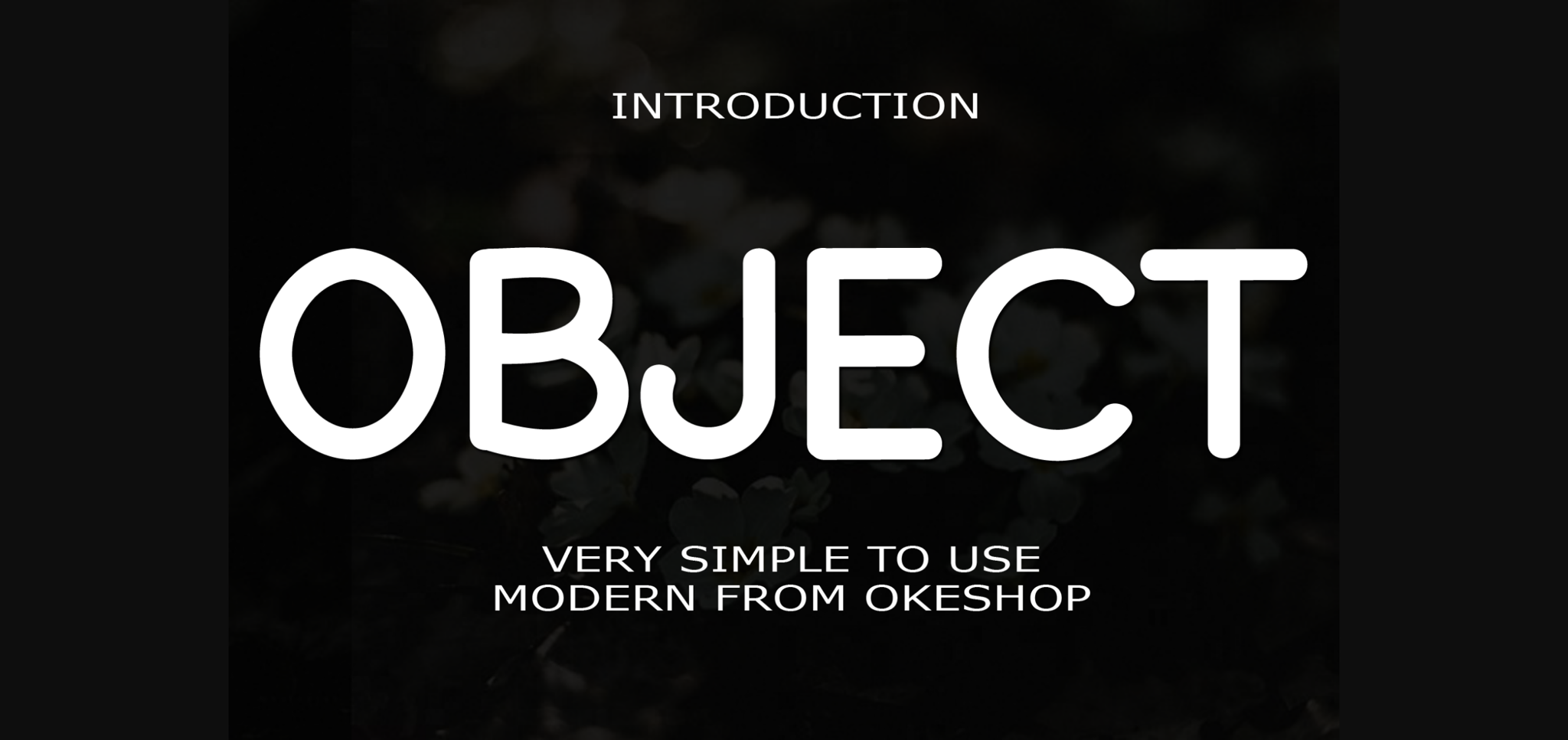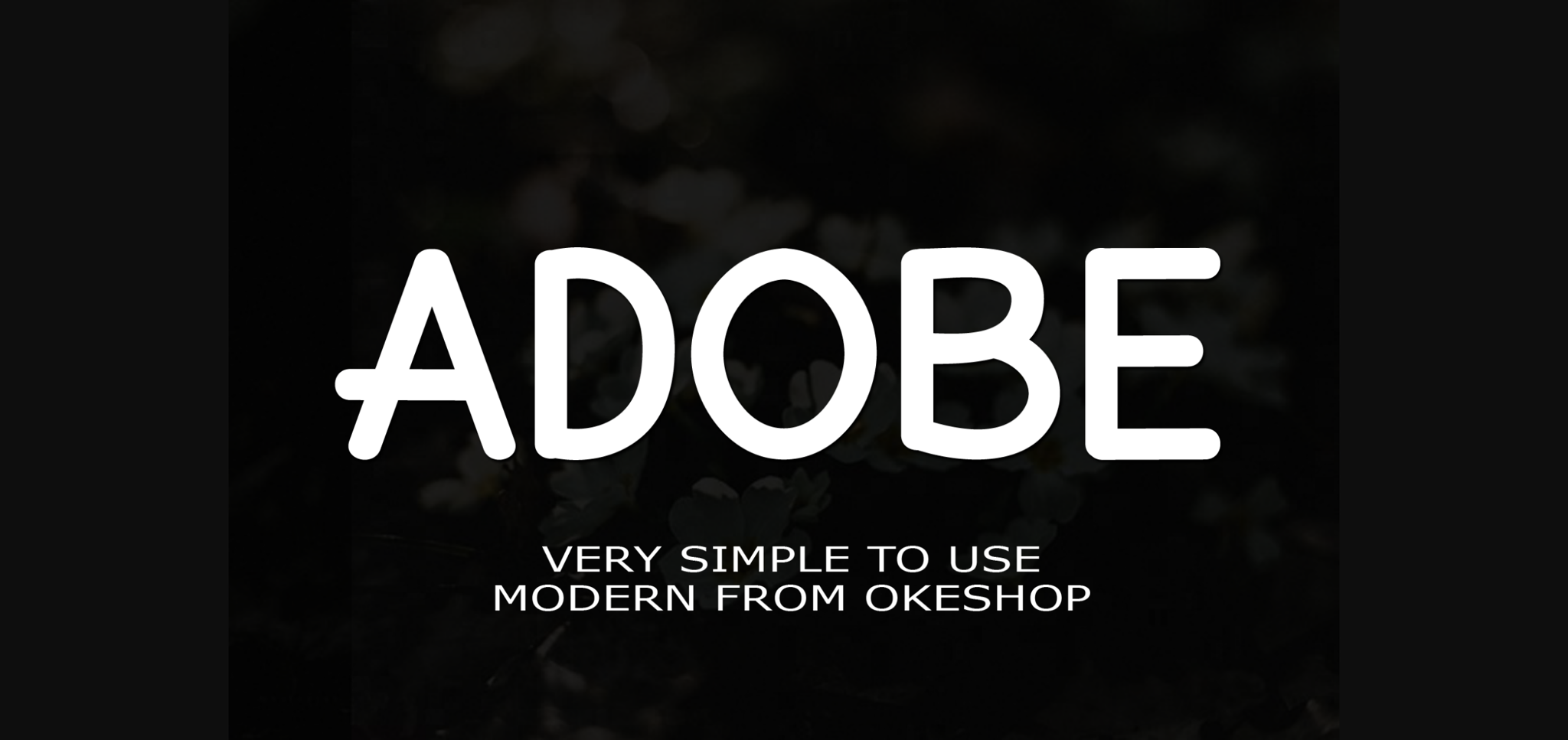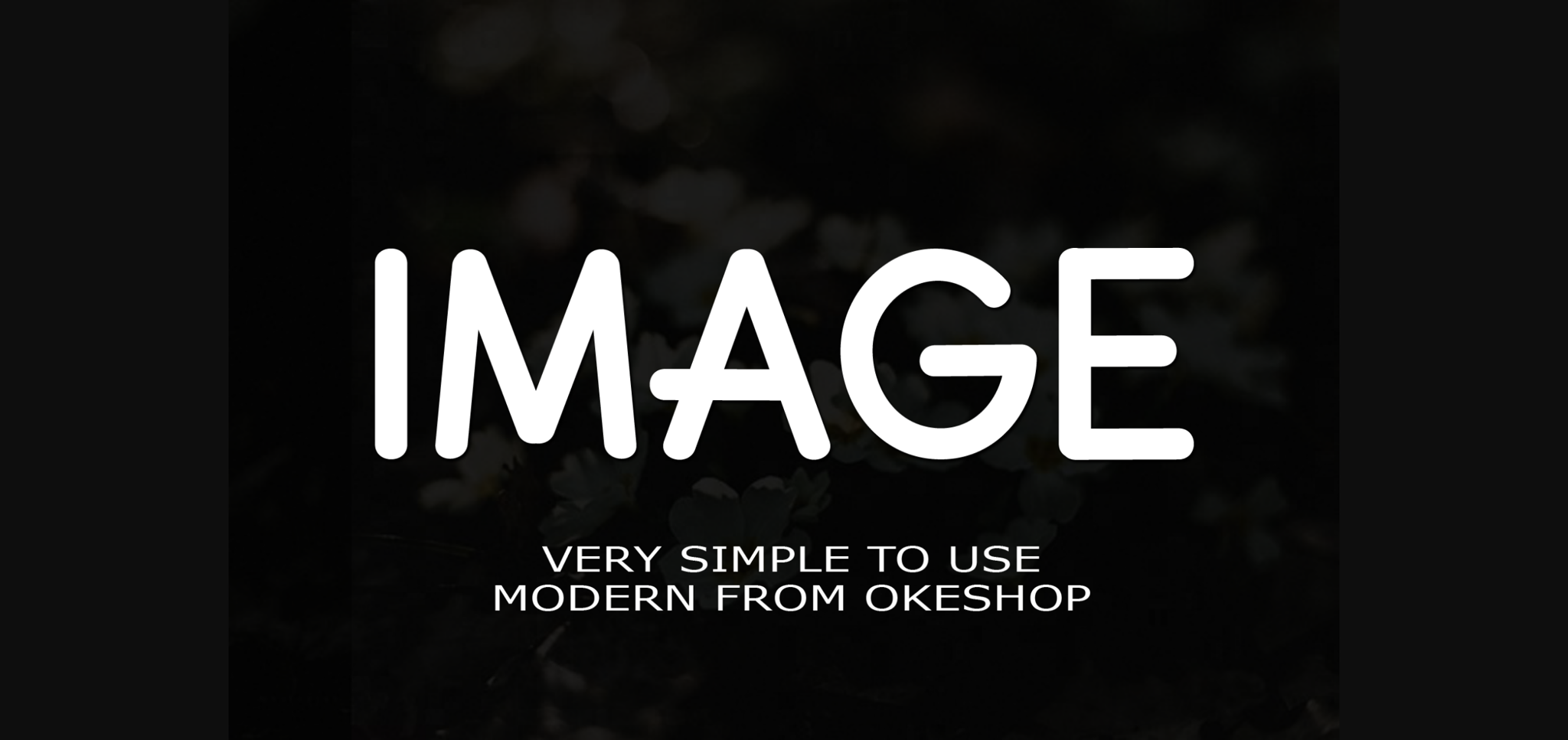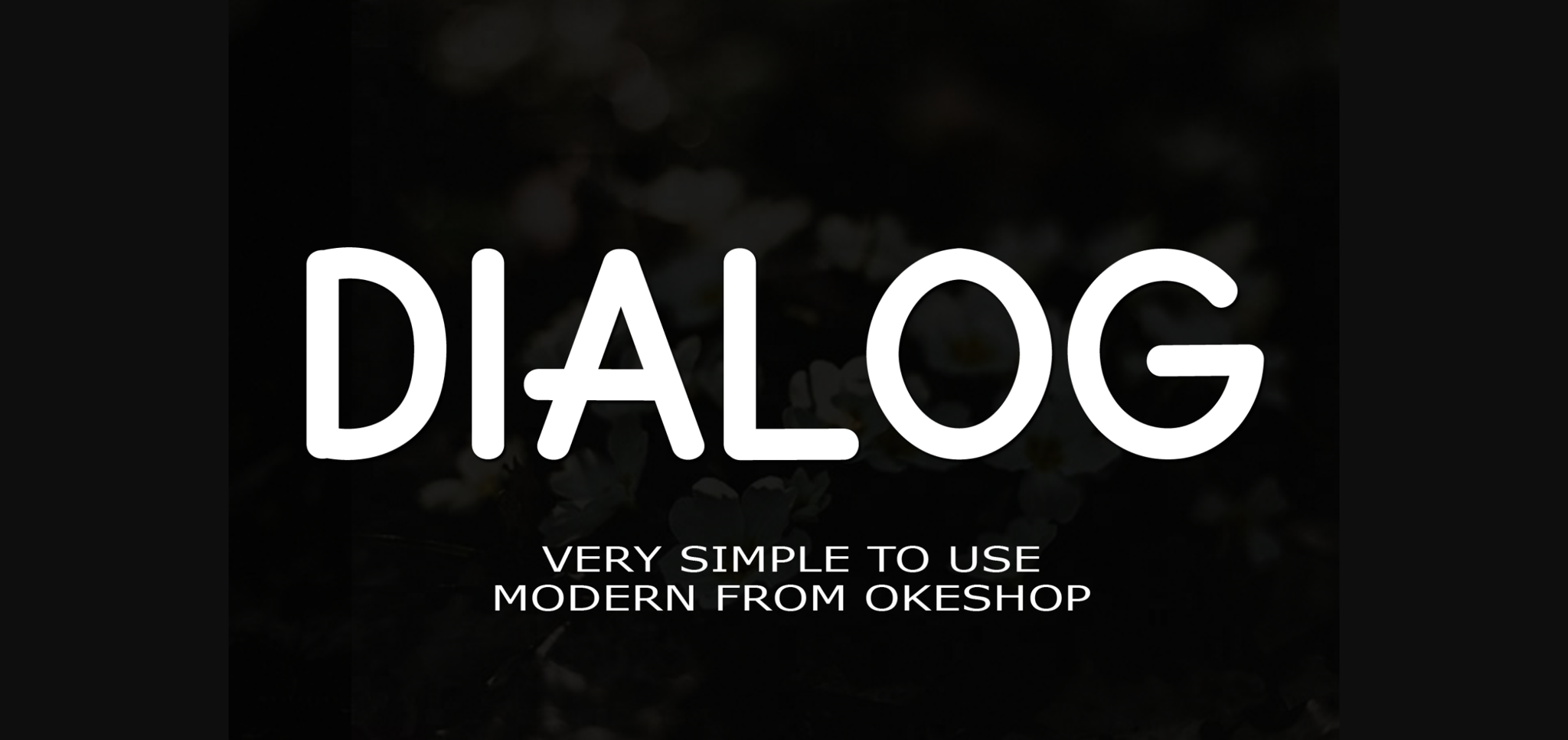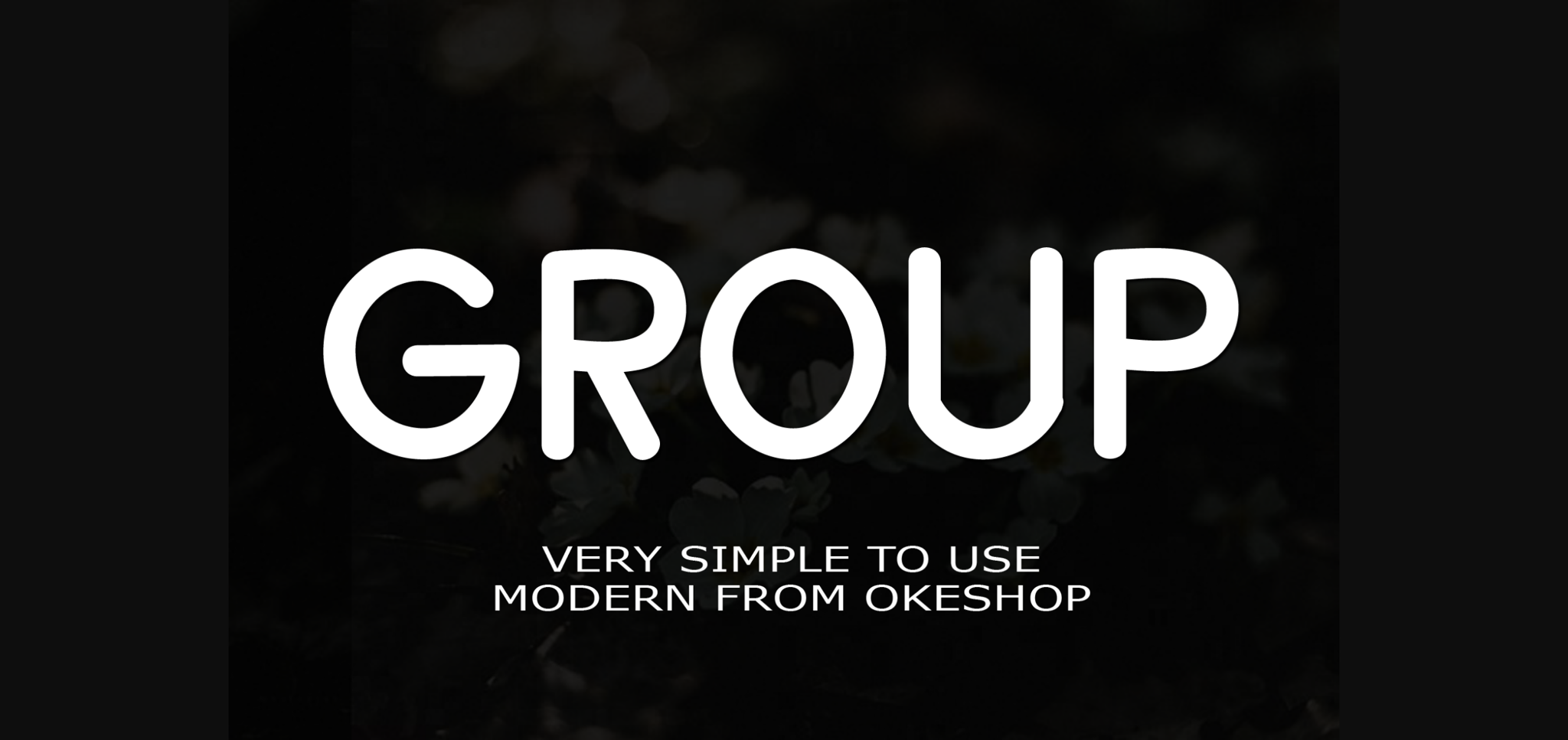
Object Font
About Object Font
Object is a simple and friendly sans serif font. Whether you’re using it for crafts, digital design, presentations, or making greeting cards, this font has the potential to become your favorite go-to font, no matter the occasion!